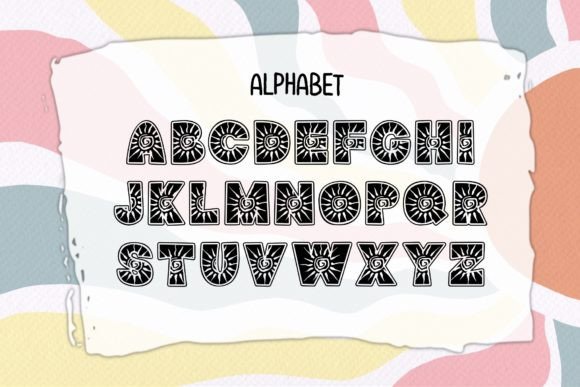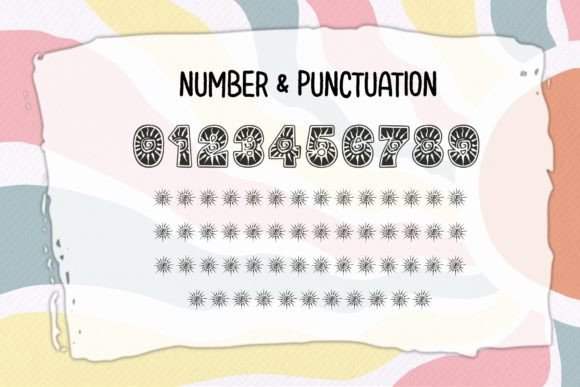
Introduction to Magic Sun Font
Magic Sun is a cheerful and bright decorative font.
The sun streaks inside the letters make it look special This font is the perfect fit for all of your logos, branding, social media, crafty DIY projects, and much more.